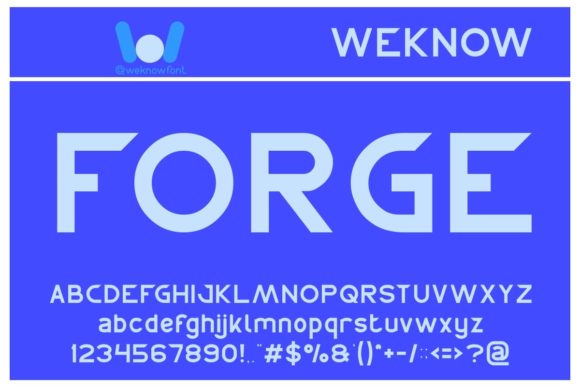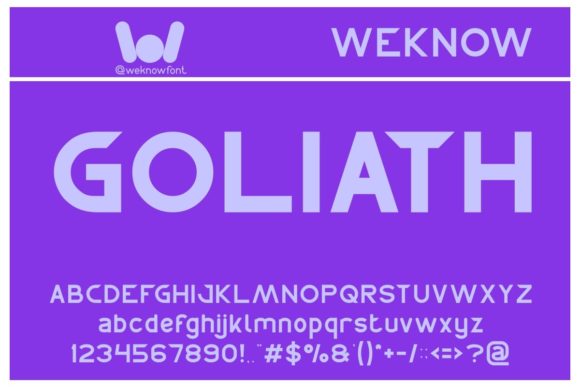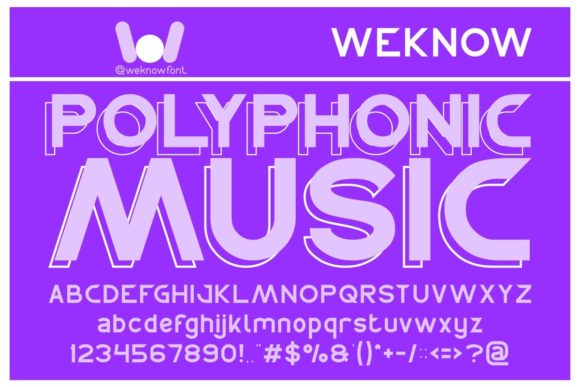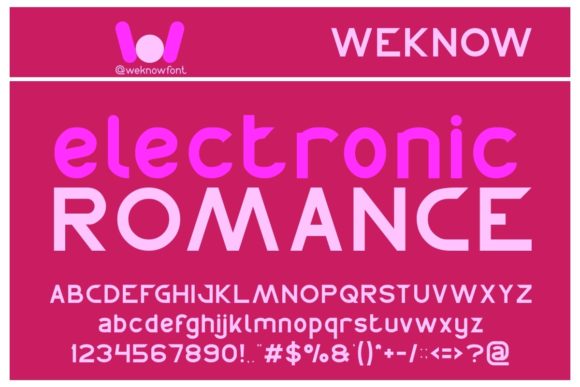
Chemistry Font: The Ultimate Display Font for Designers and Crafters
Are you tired of using the same old fonts in your designs? Look no further than Chemistry Font, a clean and adaptable display font that’s perfect for adding a touch of sophistication to any project. In this article, we’ll take a closer look at Chemistry Font, its features, and why it’s a must-have for designers and crafters.
What is Chemistry Font?
Chemistry Font is a modern display font designed to enhance any creation. Its clean lines, elegant curves, and versatile style make it perfect for a wide range of applications, from branding and advertising to packaging and digital media. Whether you’re working on a logo, brochure, or social media post, Chemistry Font is sure to make a lasting impression.
Key Features of Chemistry Font
- Clean and Adaptable: Chemistry Font boasts a clean and adaptable design, making it easy to pair with other fonts and styles.
- Versatile: This font is suitable for a wide range of applications, from digital media to print materials.
- Elegant Curves: Chemistry Font features elegant curves and lines, giving it a sophisticated and modern look.
- High-Quality: This font is designed with high-quality craftsmanship, ensuring that it looks great in any size or resolution.
Benefits of Using Chemistry Font
So why choose Chemistry Font for your next project? Here are just a few benefits of using this amazing display font:
- Enhance Your Designs: Chemistry Font has the potential to elevate any creation, adding a touch of sophistication and elegance.
- Stand Out from the Crowd: With its unique and modern design, Chemistry Font is sure to make your designs stand out from the competition.
- Save Time: This font is easy to use and pair with other styles, saving you time and effort in the design process.
- Professional Results: Chemistry Font is designed to produce professional-looking results, making it perfect for designers and crafters who want to deliver high-quality work.
Who Can Benefit from Chemistry Font?
Chemistry Font is perfect for a wide range of designers and crafters, including:
- Graphic Designers: Add a touch of sophistication to your branding, advertising, and marketing materials.
- Digital Artists: Use Chemistry Font to create stunning digital art, social media posts, and online graphics.
- Crafters: Add a professional touch to your handmade products, packaging, and labels.
- Marketing Agencies: Use Chemistry Font to create eye-catching campaigns and promotional materials.
How to Use Chemistry Font
Using Chemistry Font is easy! Here are a few tips to get you started:
- Pair with Other Fonts: Experiment with pairing Chemistry Font with other fonts and styles to create unique and interesting combinations.
- Adjust Size and Color: Adjust the size and color of Chemistry Font to suit your design needs.
- Use in Digital Media: Use Chemistry Font in digital media, such as social media posts, online graphics, and website headers.
- Print Applications: Use Chemistry Font in print applications, such as brochures, flyers, and business cards.
In conclusion, Chemistry Font is a must-have for designers and crafters looking to add a touch of sophistication and elegance to their creations. With its clean lines, elegant curves, and versatile style, this font is perfect for a wide range of applications. Whether you’re working on a branding project, digital art, or handmade products, Chemistry Font is sure to enhance your designs and help you stand out from the crowd.